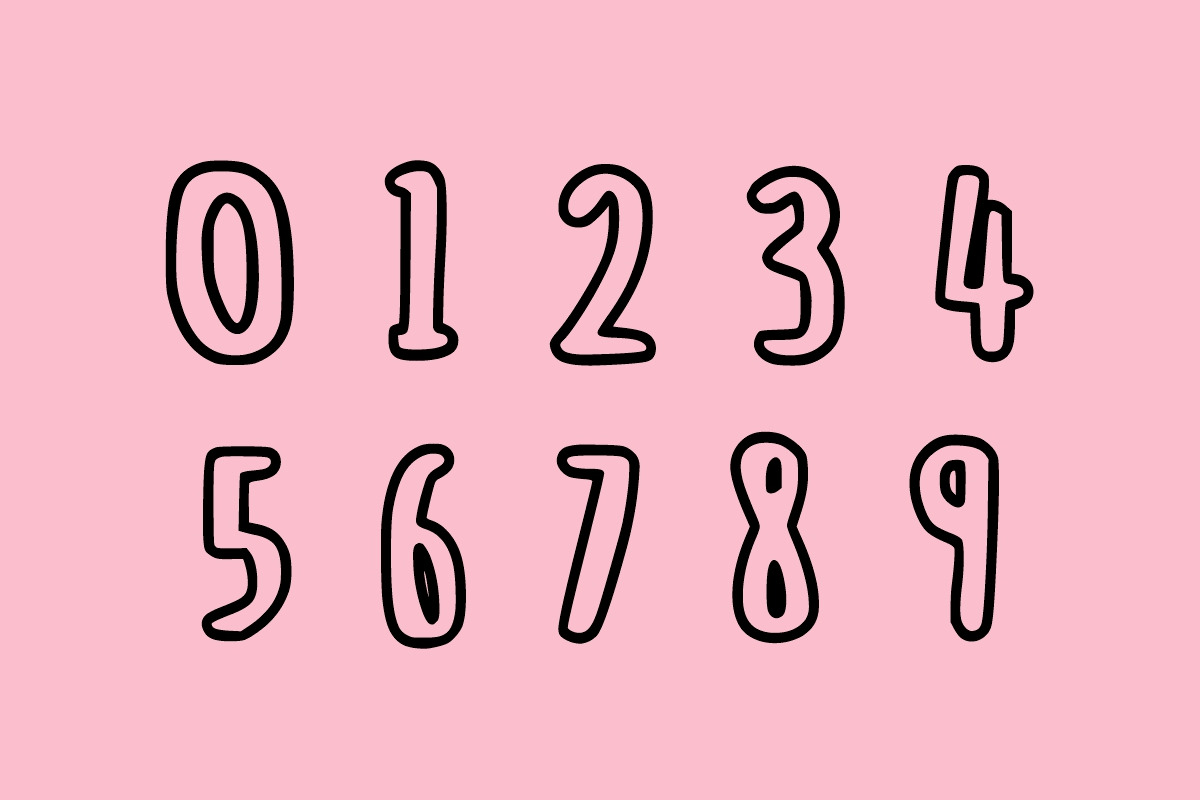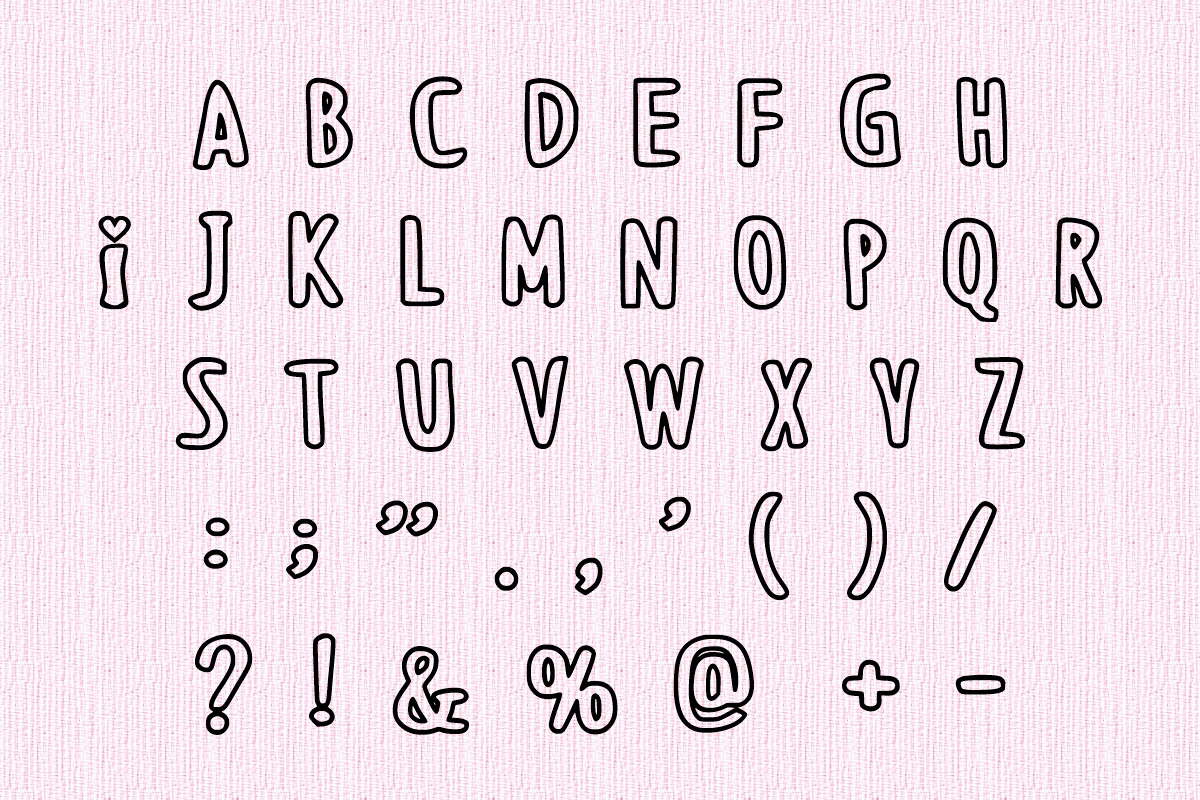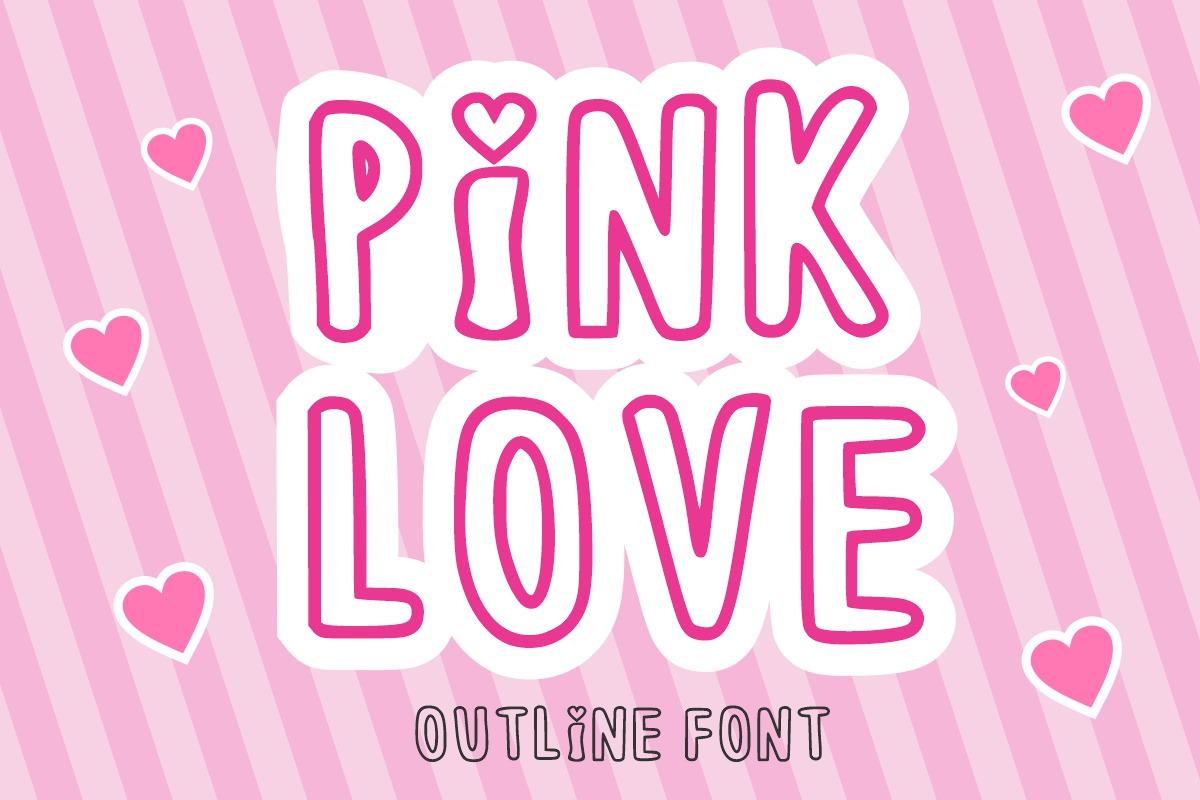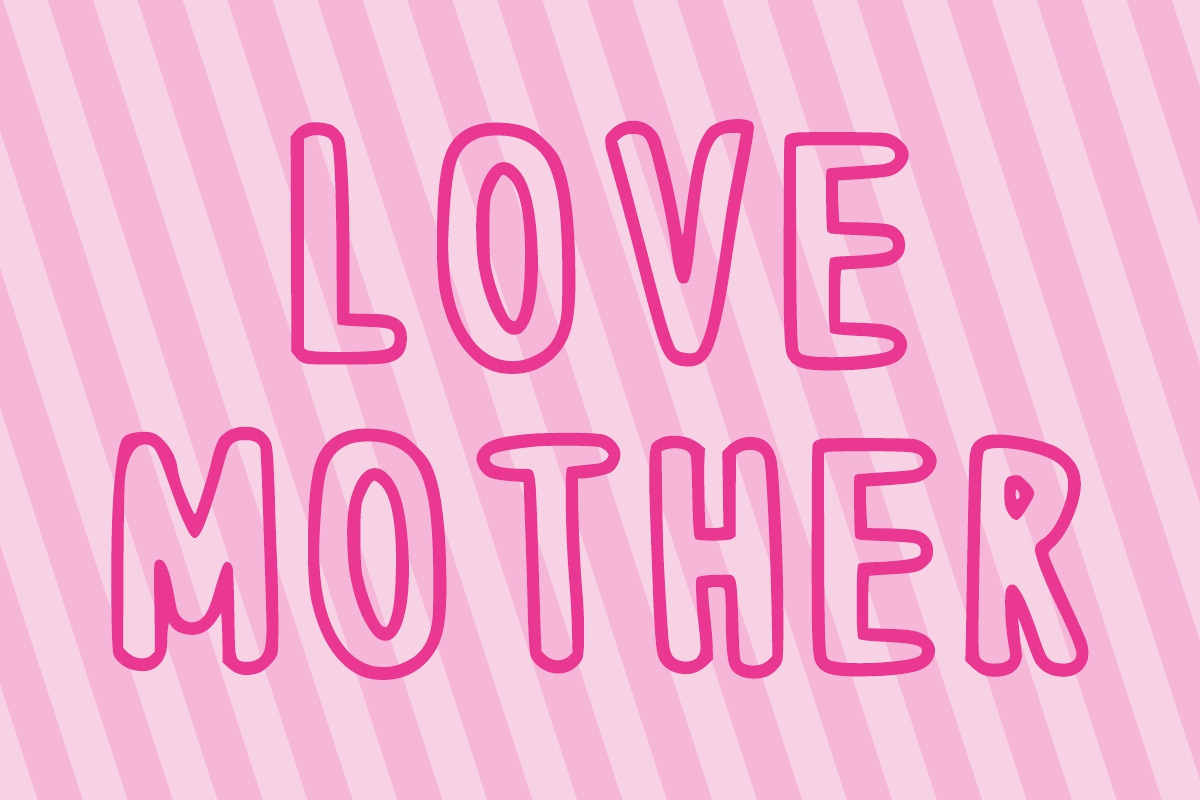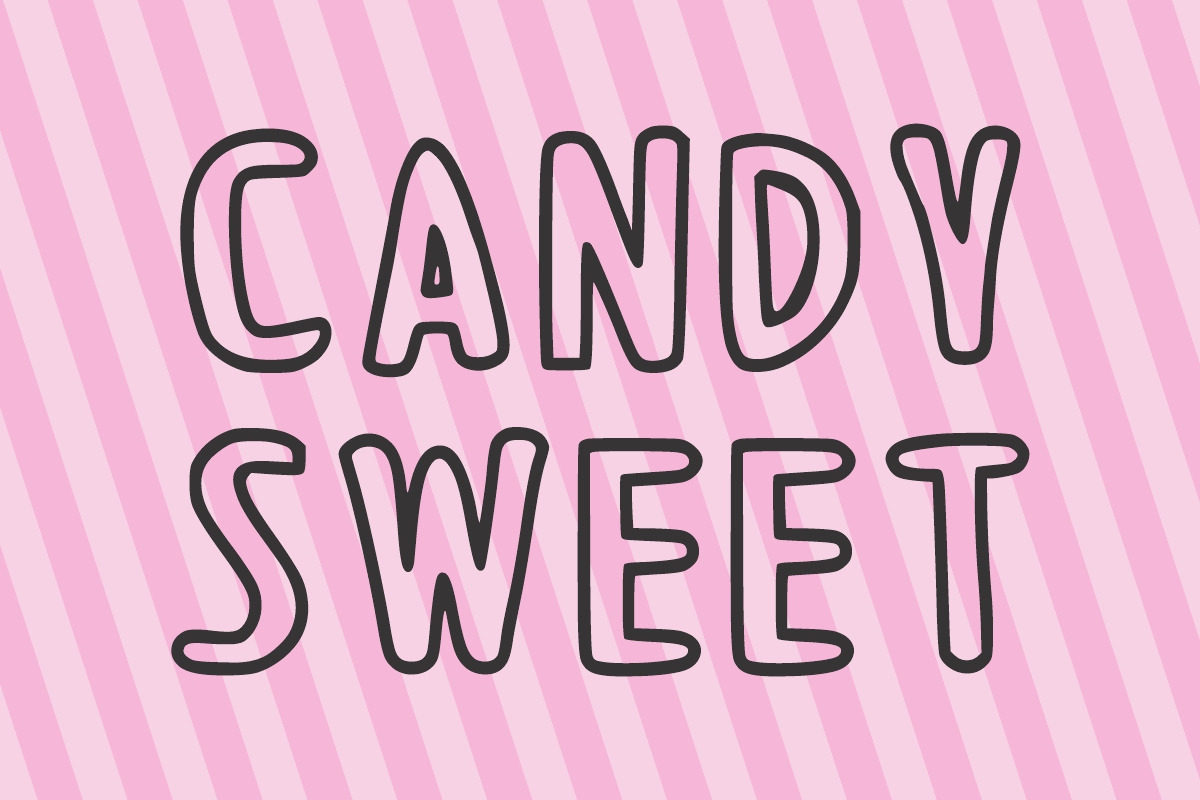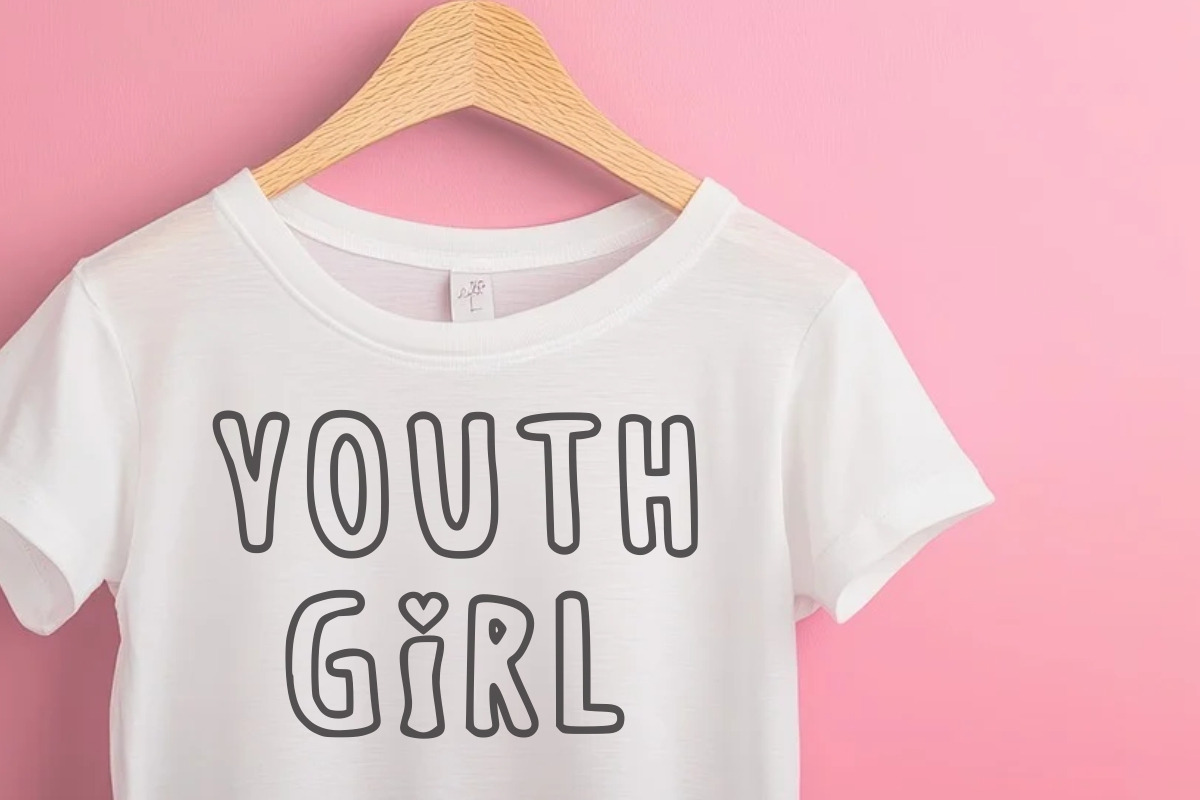
Pink Love outline font
Pink Love is a delightful, bold outline font that captures a whimsical, hand-drawn aesthetic, perfect for designs that need a cute and energetic typography style.
This charming typeface features thick, bubbly glyphs with clean inner lines, giving it a playful, cutout appearance ideal for stickers, cartoons, and children's projects. The unique outline structure makes this font exceptionally versatile for layering effects, allowing designers to easily add custom colors, textures, or drop shadows for maximum visual impact. This memorable display font is a top choice for vibrant branding, social media content, T-shirt designs, and any creative project that demands a distinct, lovable, and fun typography appeal.